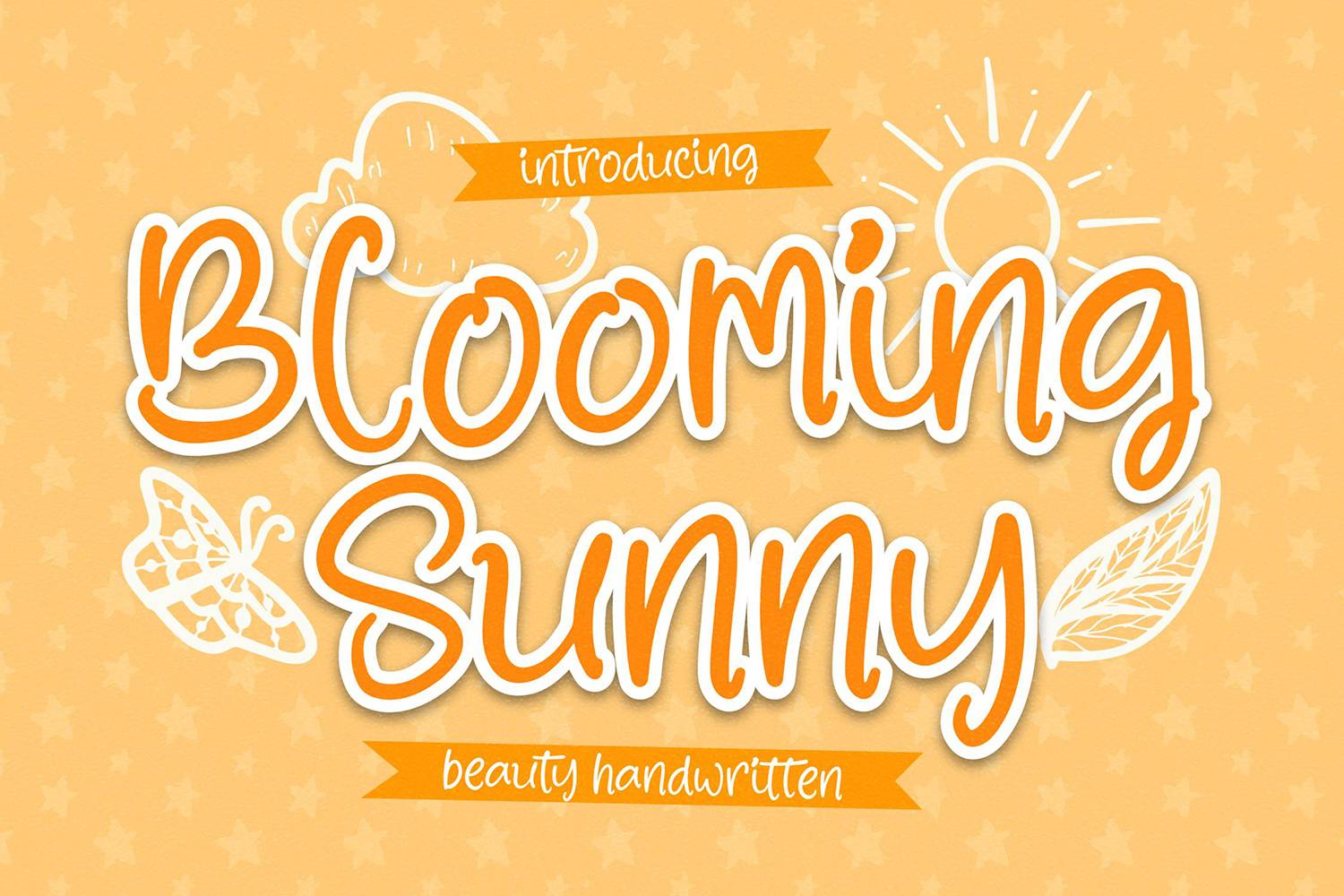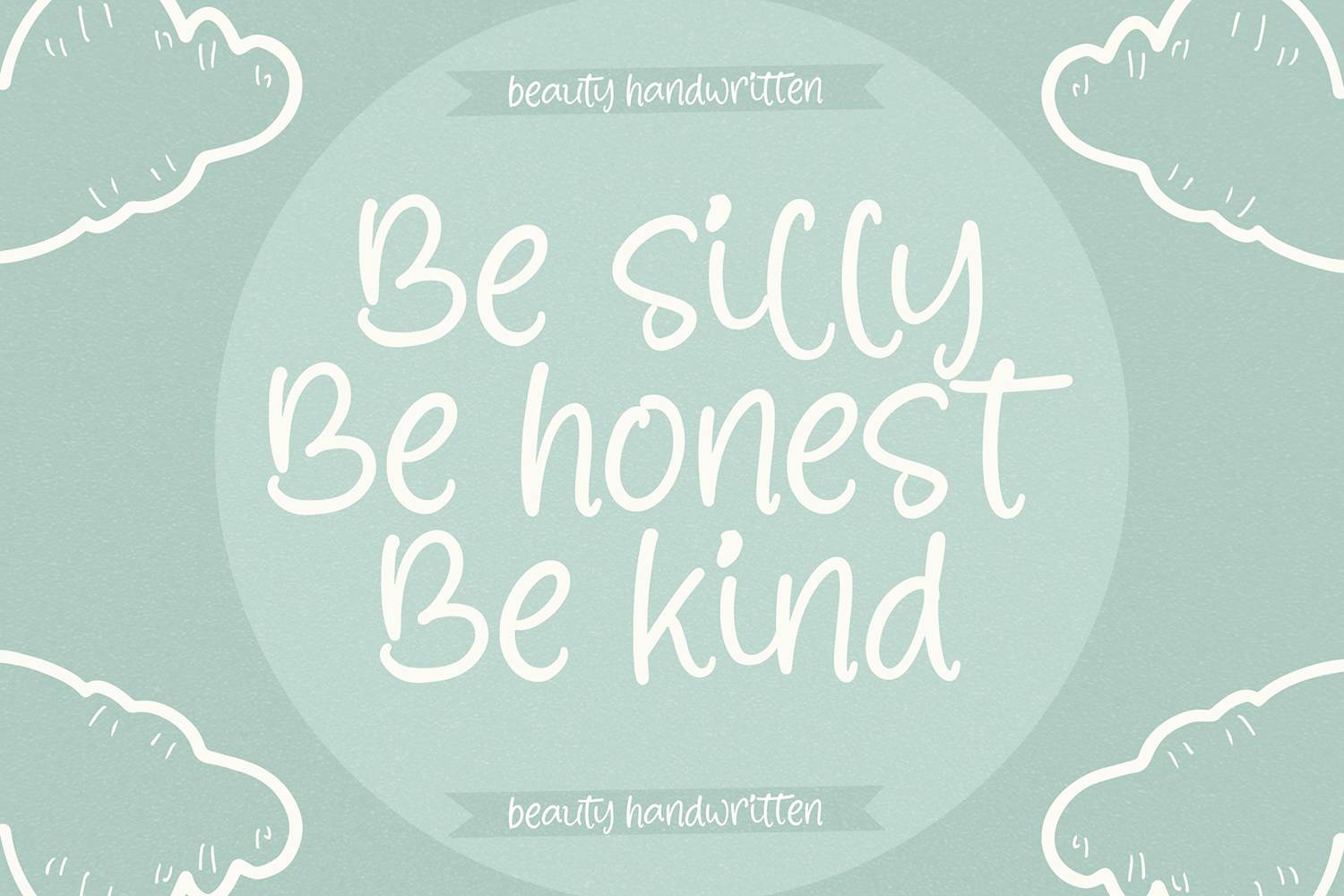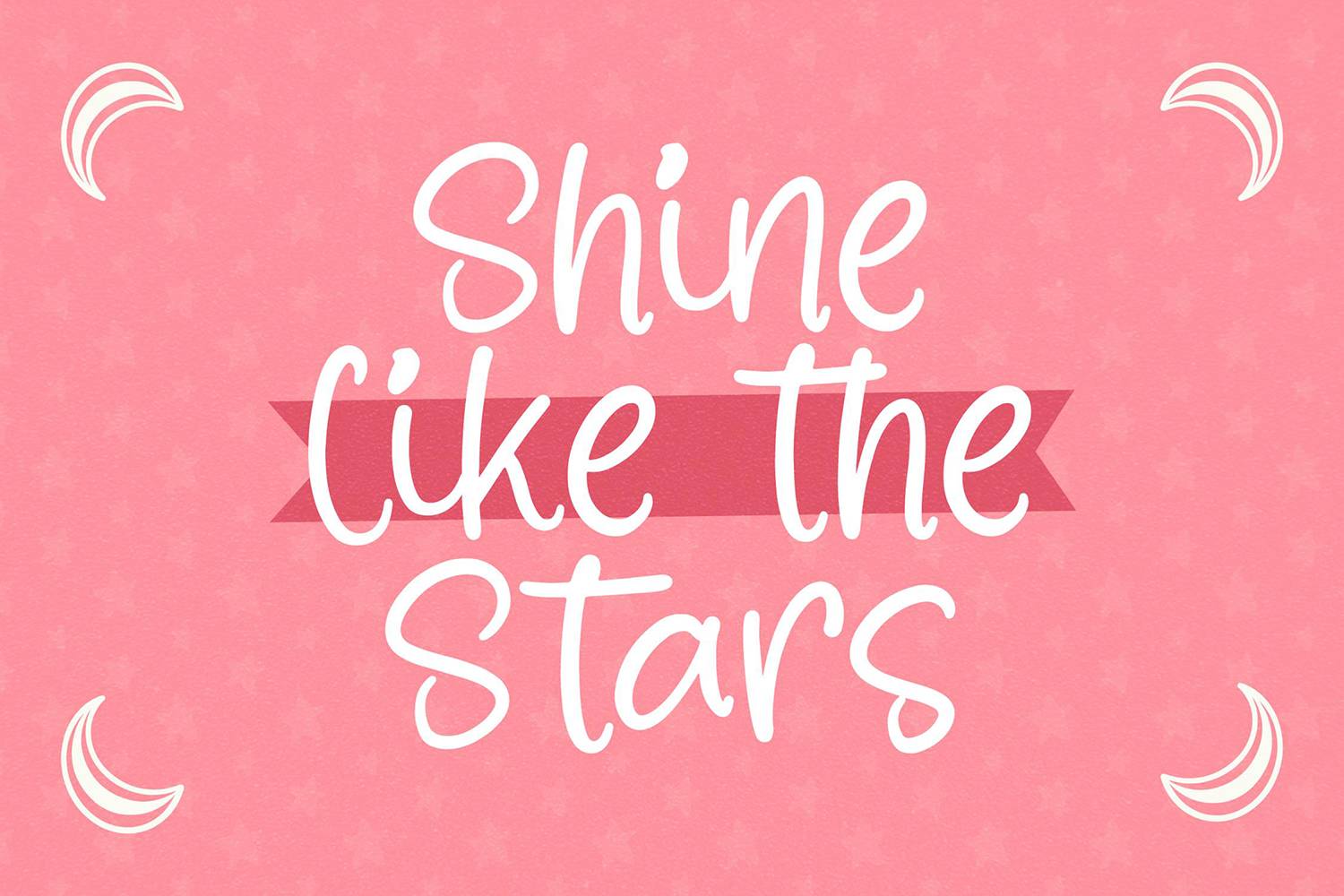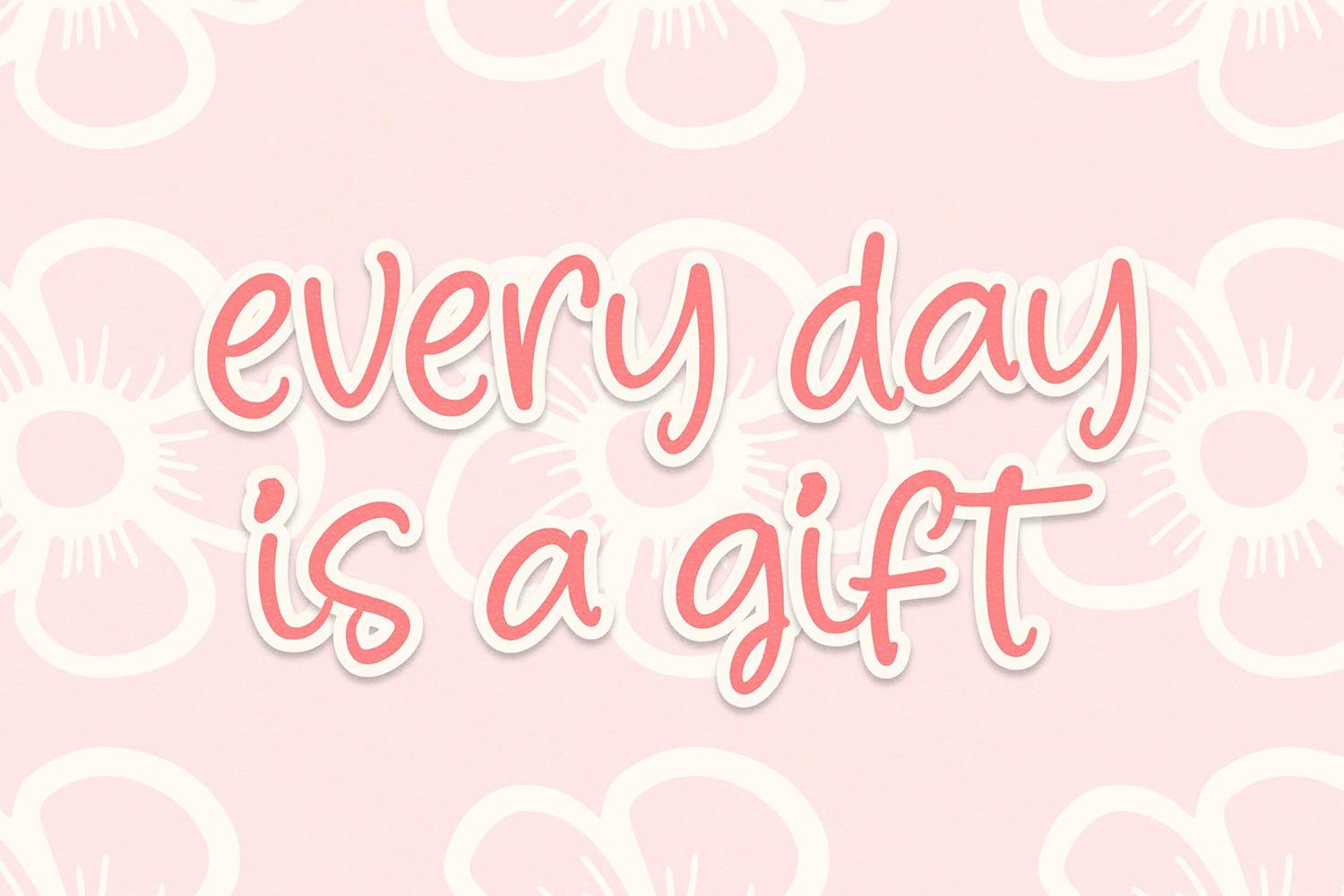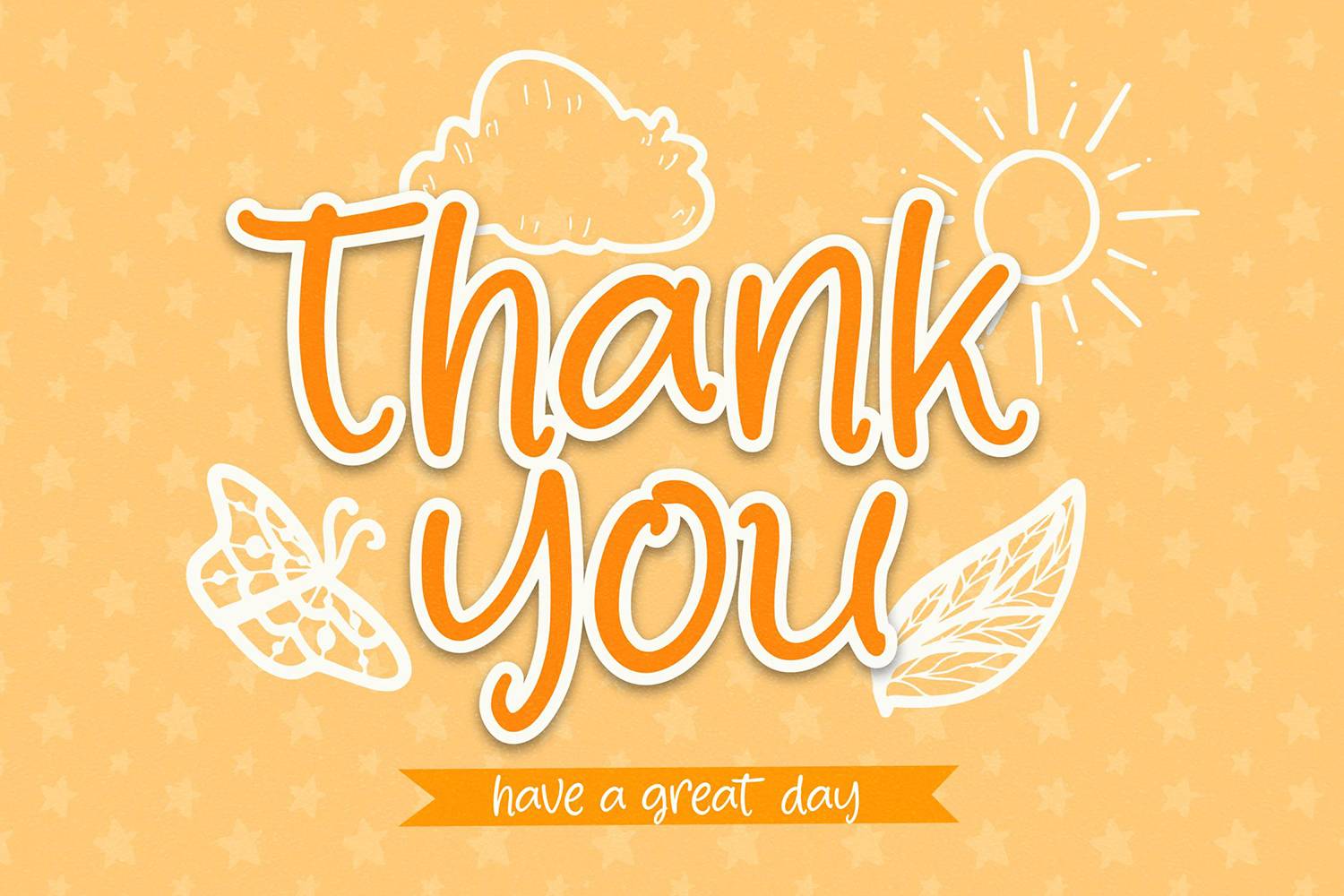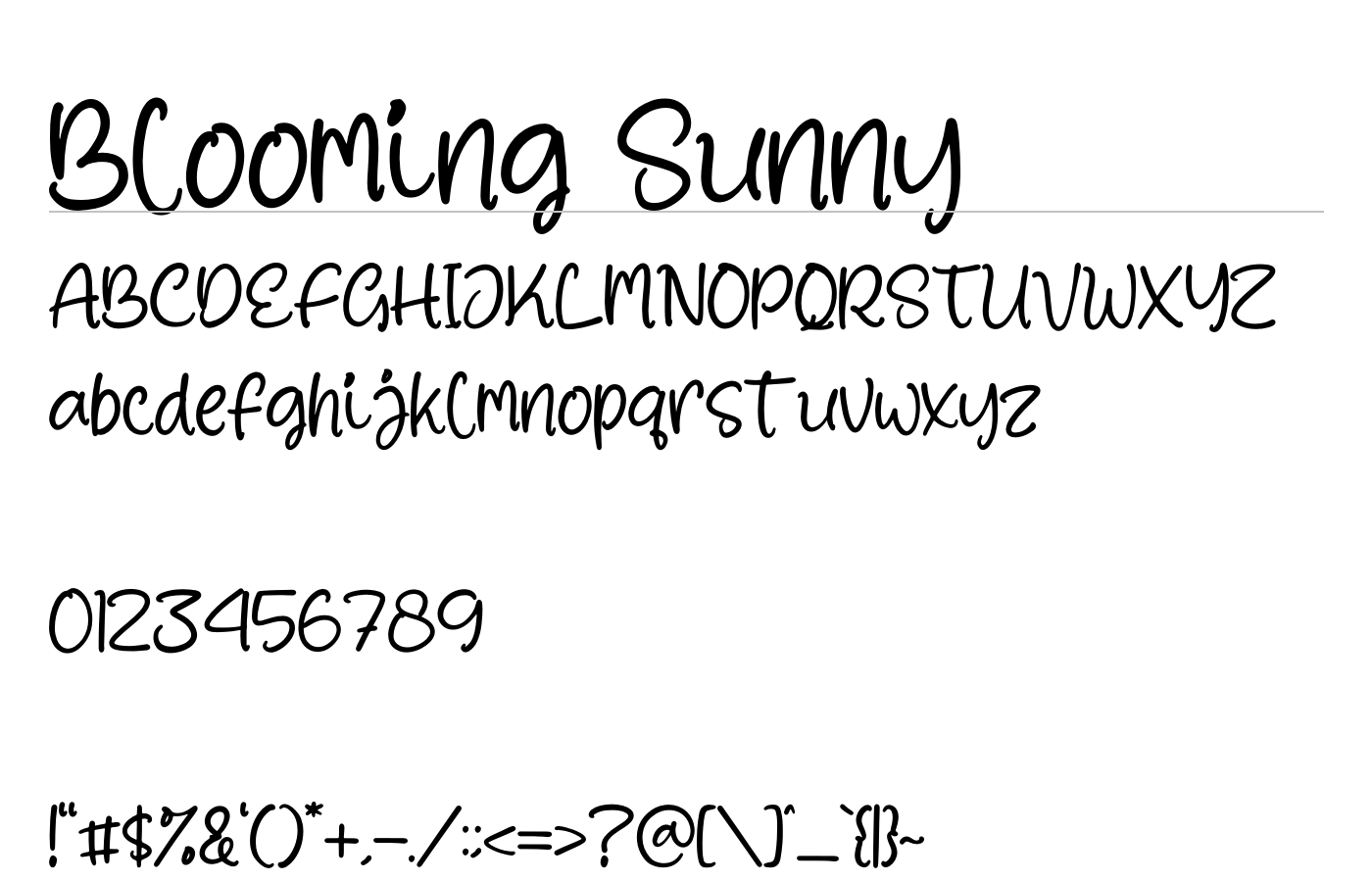
Blooming Sunny is a playful and informal handwritten font with a natural, easygoing feel. Its smooth, rounded strokes and casual letterforms create a friendly and approachable style, making it ideal for creative projects, children’s materials, or brands that want to convey warmth and cheerfulness. This font works well for logos, invitations, and headlines where a personal, sunny touch is desired.
Blooming Sunny Font
About Blooming Sunny Font